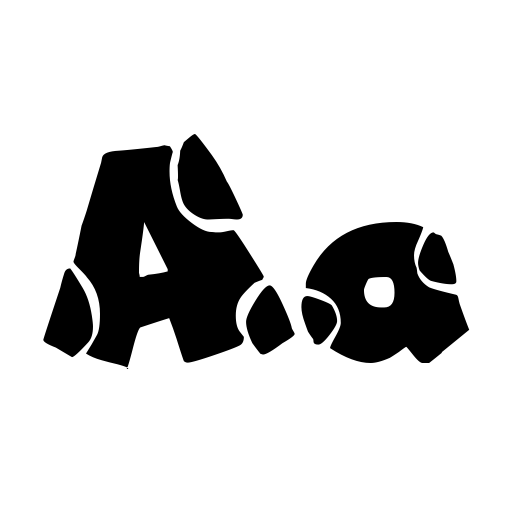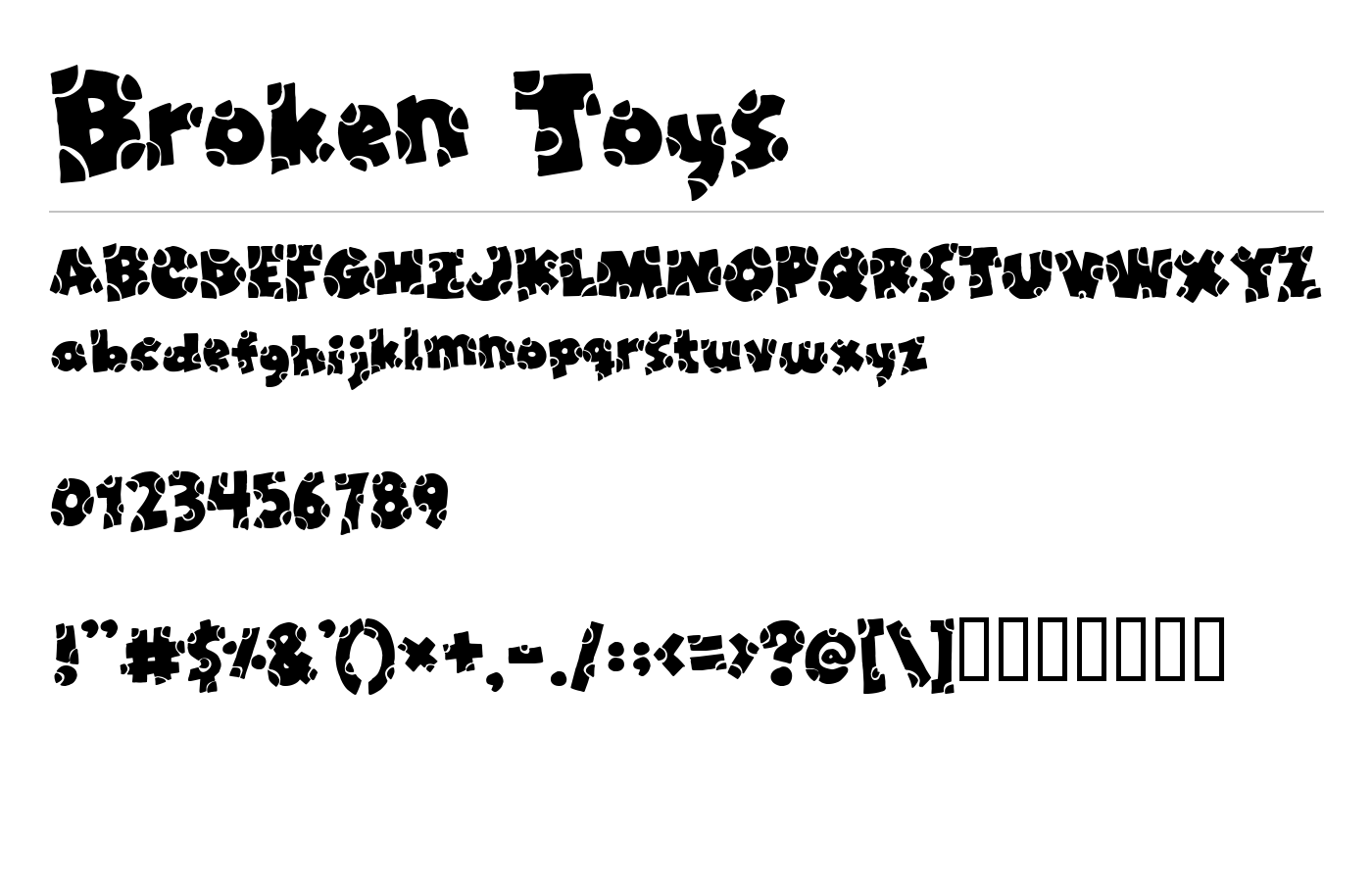
Broken Toys is a bold, playful display font with chunky, irregular shapes that evoke a quirky, hand-crafted feel. Its heavily stylized, fragmented letterforms make it ideal for creative, fun projects like posters, logos, and playful branding where a unique, eye-catching personality is needed. This font shines in contexts that call for a lively, unconventional vibe rather than long body text.
Broken Toys Font
About Broken Toys Font